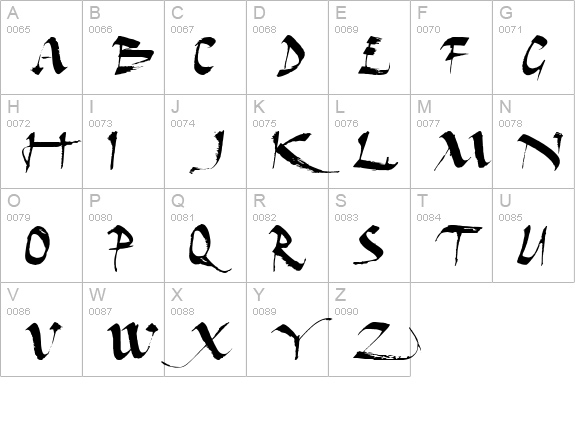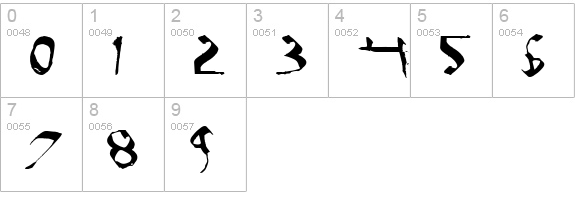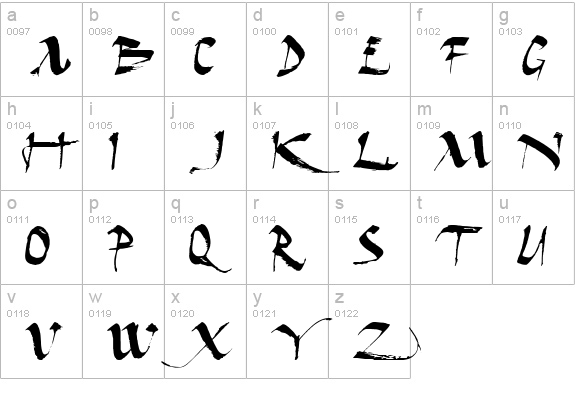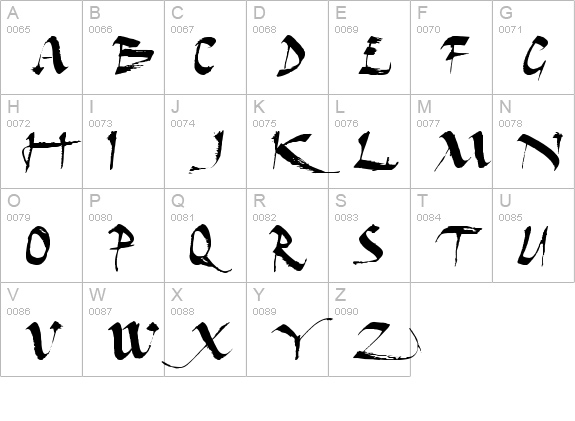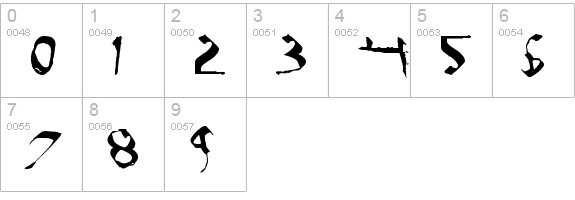
Dark Horse Expanded is a distinctive, extended-width variant in the Dark typeface family \xE2\x80\x94 well suited to design and typography projects.
Dark Horse Expanded font is a bold and striking typeface that exudes strength and sophistication. With its elongated letterforms and sharp edges, this font commands attention and makes a powerful statement in any design project. Perfect for headlines, titles, posters, and branding materials, Dark Horse Expanded stands out with its unique style and modern aesthetic. What's even better is that Dark Horse Expanded font is available for free download at FontsMarket.com. You can easily access this versatile typeface and elevate your designs with its bold presence. Don't miss out on the opportunity to add Dark Horse Expanded to your font collection and make a bold impact in your creative endeavors.